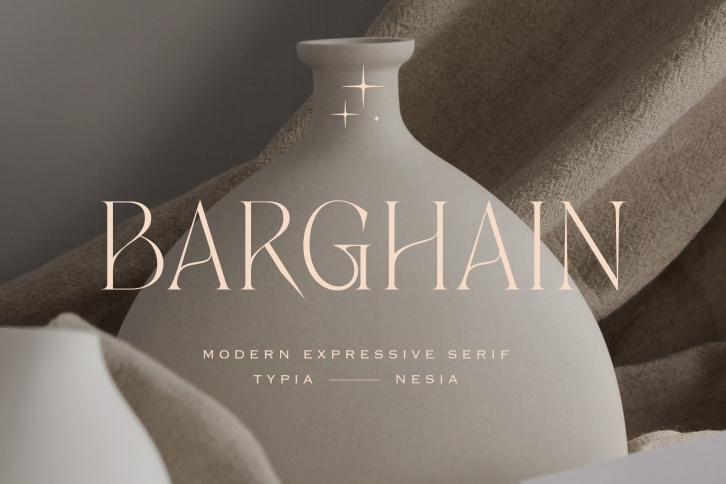
Barghain – Modern, Beautiful, Elegant, Aesthetic Serif – Expressive Feminine Logo Branding Font
Barghain comes with some alternates and ligatures, so you can combine them to make a perfect typography design. It is perfect for your upcoming projects such as luxury logo and branding, classy editorial design, woman's magazine, cosmetic brand, fashion promotional, art gallery branding, museum, history of architecture, boutique branding, stationery design, blog design, modern advertising design, card invitation, art quote, home decor, book/cover title, special events, and many more.